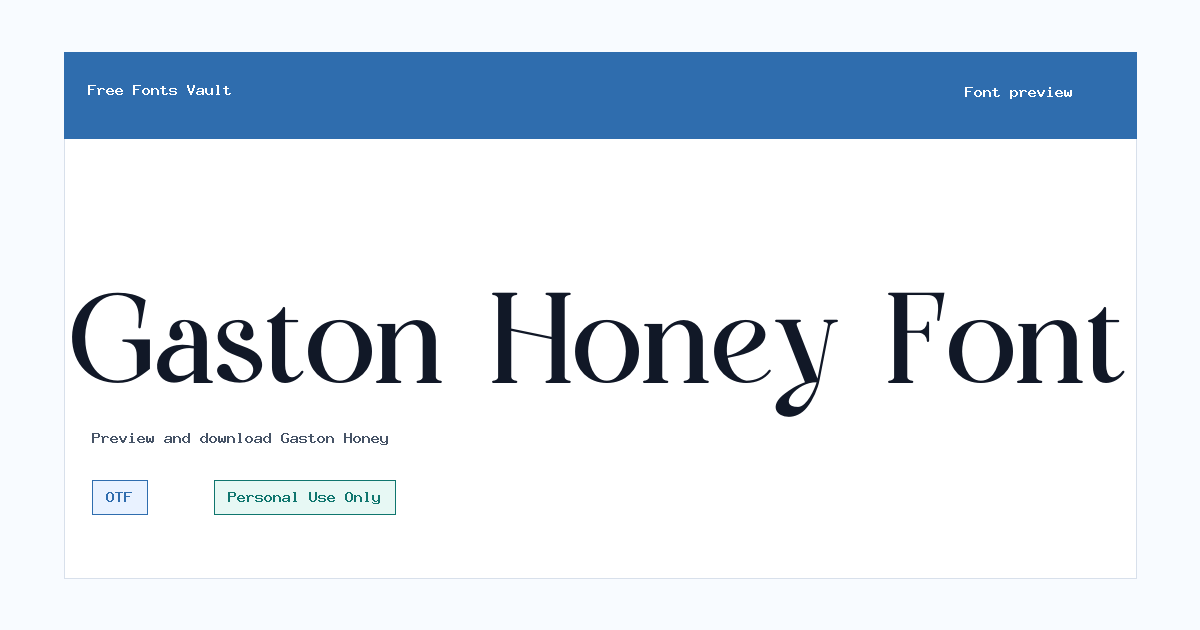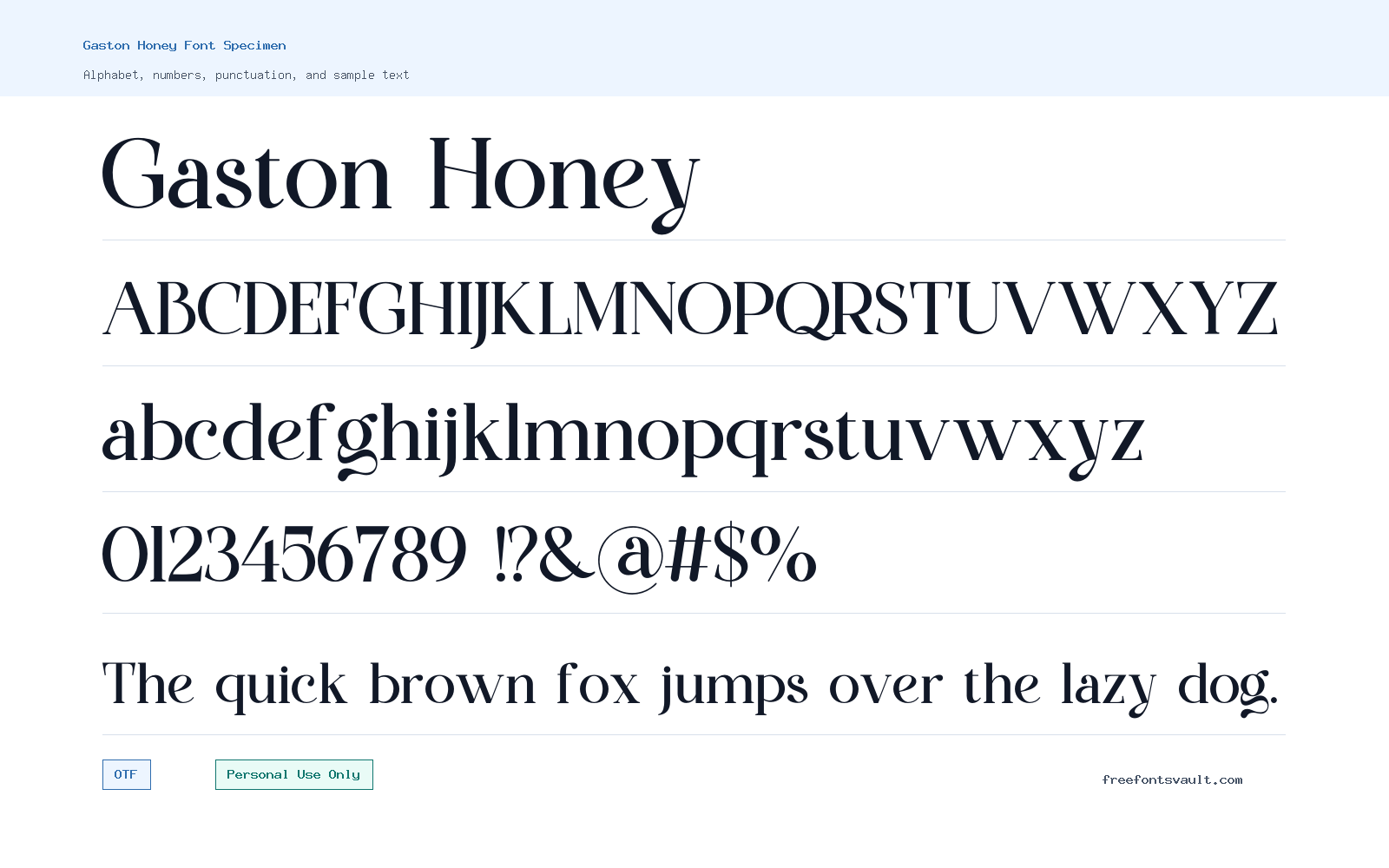
Gaston Honey
- Designer ErmediaStudio
Gaston Honey is a serif font for personal projects, with a single regular OTF style ready for preview and download. Use the tester to see how your own words look before deciding where it fits.
About Gaston Honey
Gaston Honey is presented as a serif font by ErmediaStudio. With one regular style, it is best approached as a simple display choice rather than a large text family. Try it first in short words, names, titles, and decorative headings where the shape of each letter can be seen clearly. Since only one weight is included, the font will work best when the layout does not need bold, italic, or multiple hierarchy levels from the same family.
For practical use, test Gaston Honey at the exact size you plan to use. A serif font can feel very different in a logo-sized wordmark, a social post title, and a small paragraph. Start with a few headline samples, then check mixed-case text, all caps, numbers, and punctuation. If the preview feels too decorative for body copy, pair it with a plain sans serif for descriptions, captions, menus, or longer reading sections.
- Serif font style with a regular 400 weight
- Single-style family, useful for simple personal design tests
- Good candidate for short display text, titles, and name-based layouts
- Personal logo mockups, name designs, and short wordmarks
- Invitation drafts, quote graphics, and social post headings
- Craft project previews, mood boards, and non-commercial artwork
- Testing serif display text before choosing a final type pairing
Does Gaston Honey include multiple weights?
Only one regular style is listed, with normal style and 400 weight.
What should I use Gaston Honey for?
It is best to test it in short personal-use designs such as headings, name graphics, invitations, quote images, and decorative title layouts.